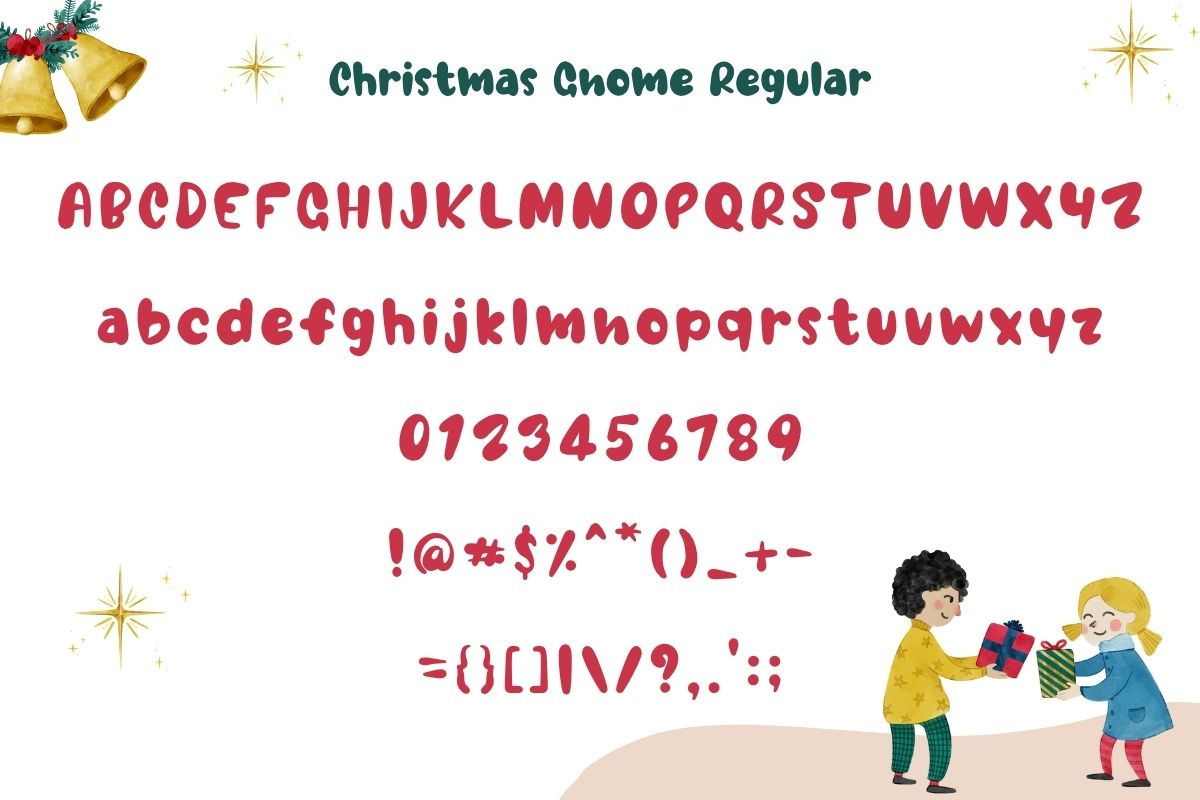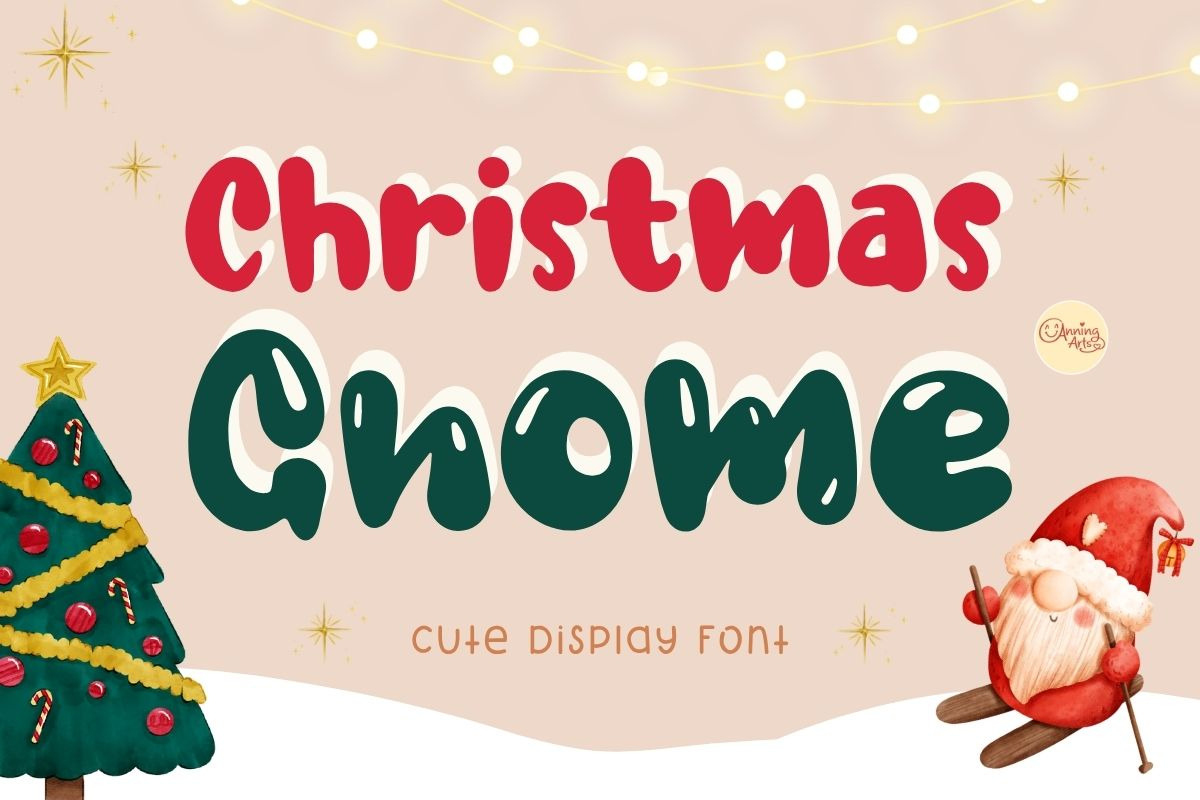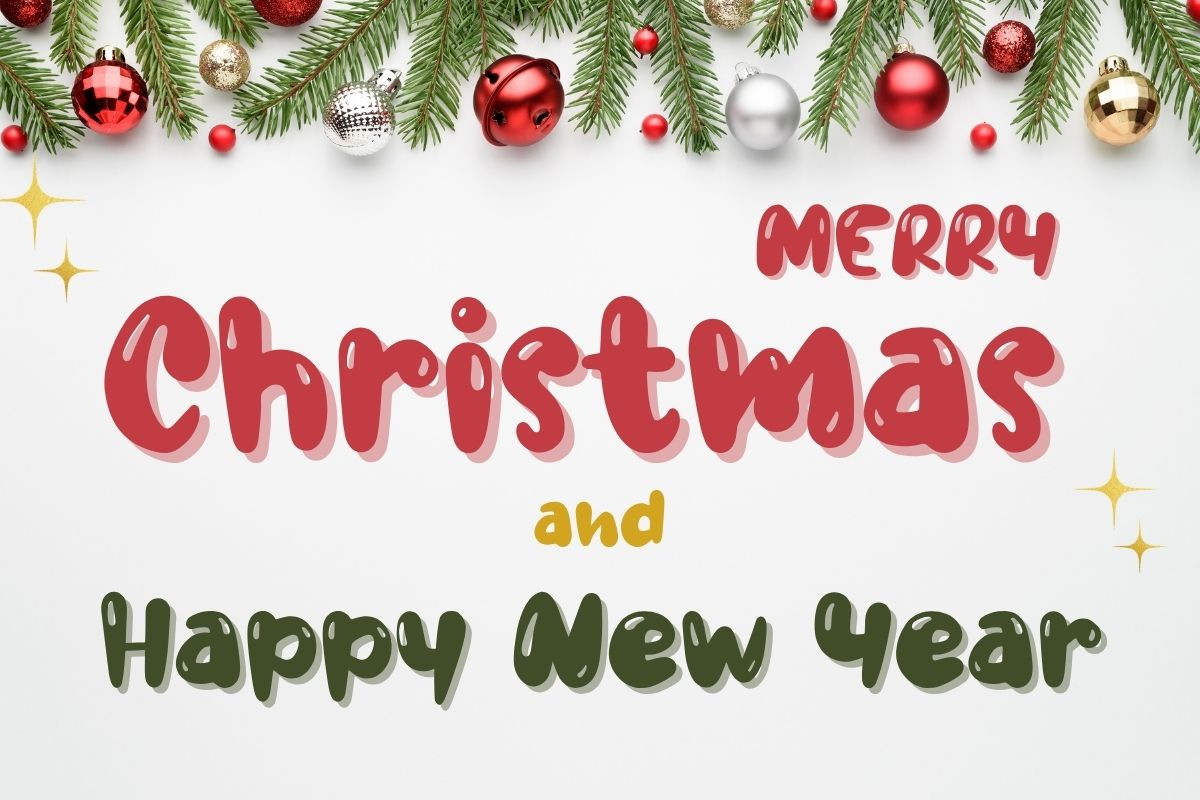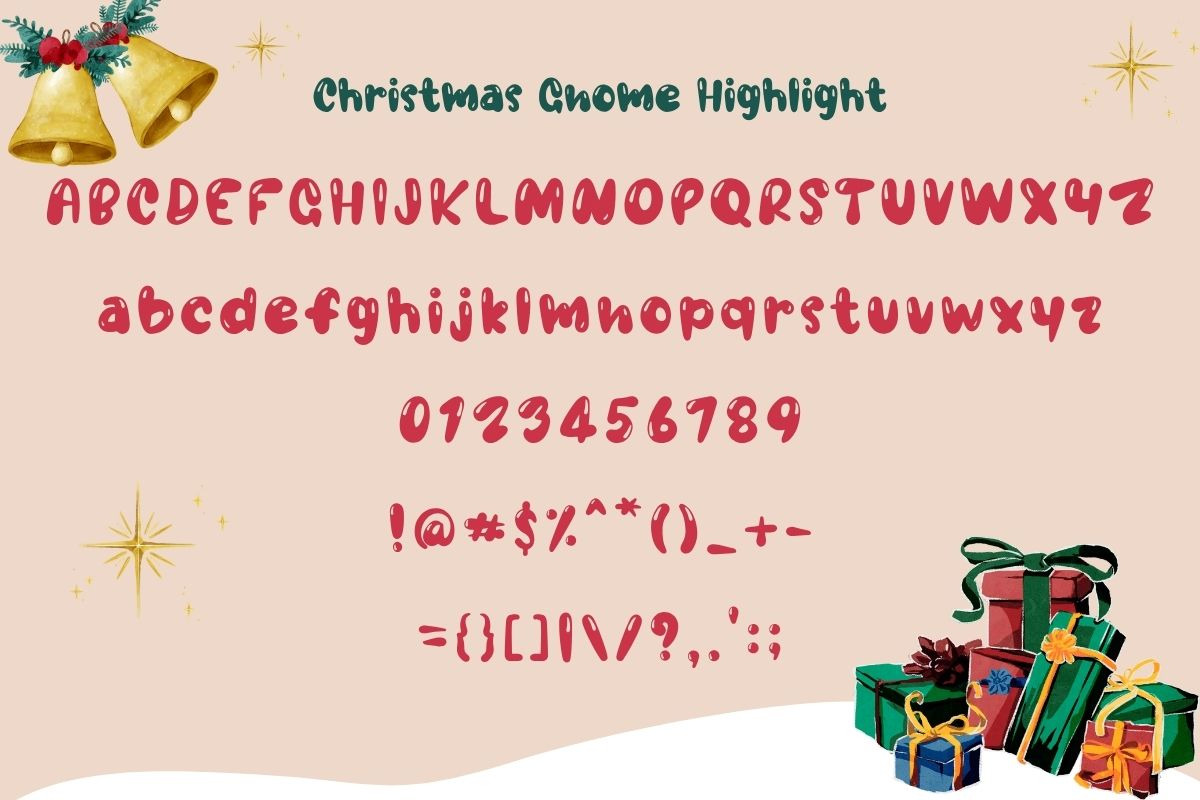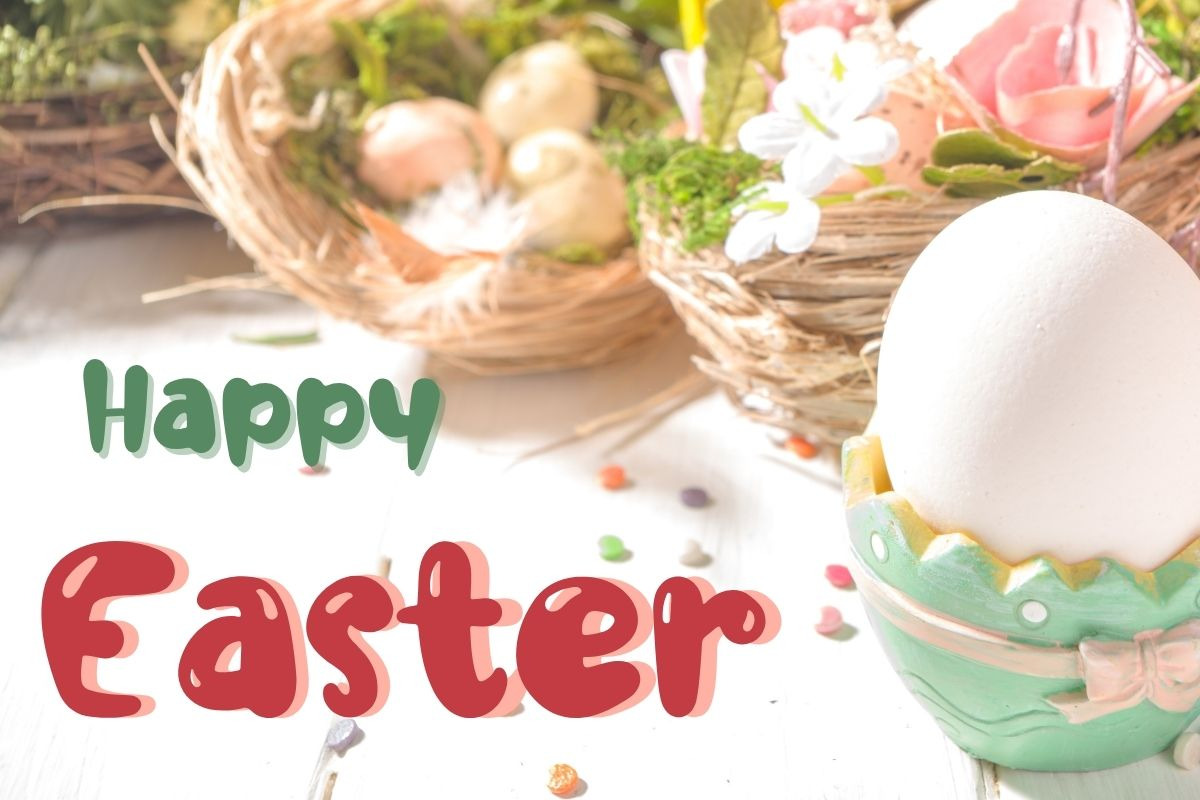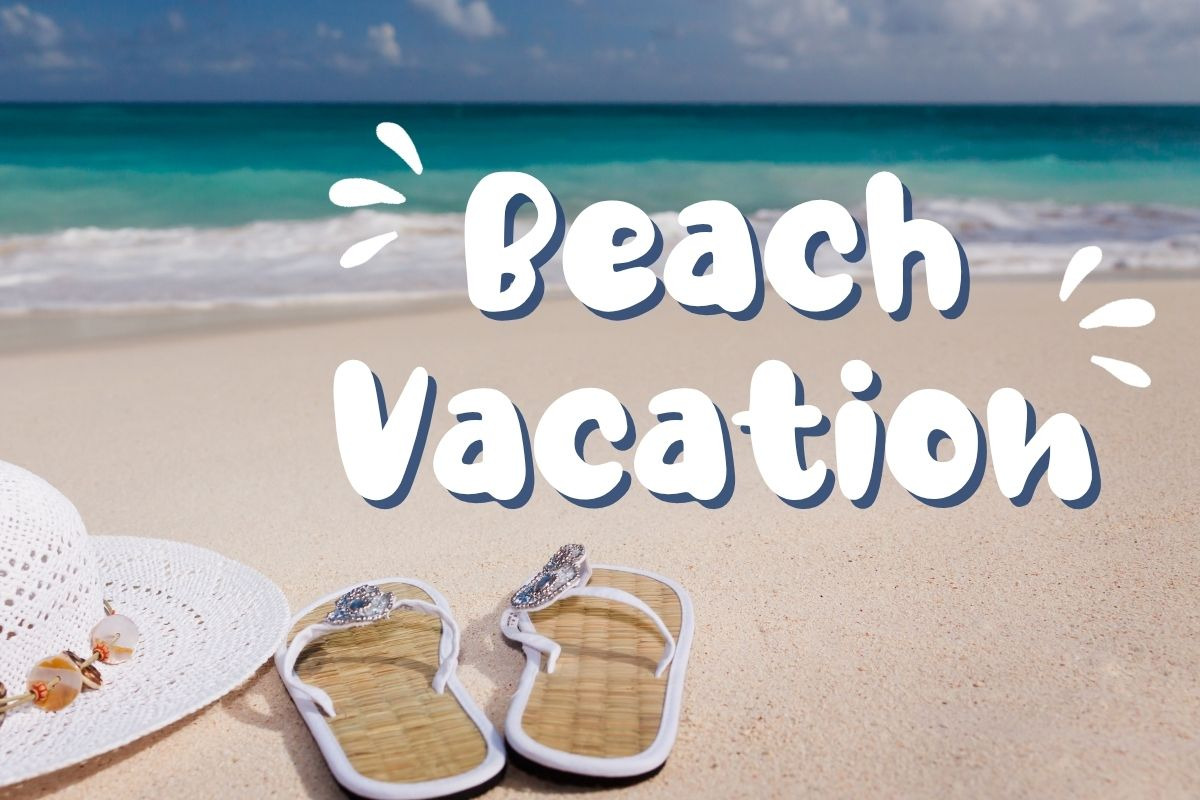
Christmas Gnome – Display Font Duo
Christmas Gnome is a festive display font duo that includes Regular and Highlight styles. Featuring chunky rounded letterforms with adorable glossy highlights, this font creates a fun, cozy, and cheerful holiday atmosphere. Designed for bold seasonal headlines and eye-catching crafts, it works beautifully across both print and digital projects while maintaining excellent readability.